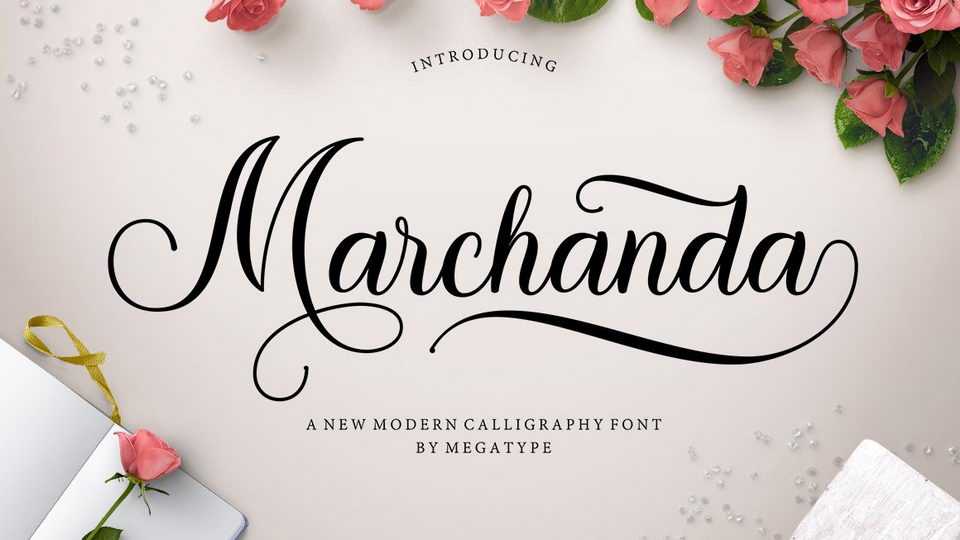
Download Marchanda font, a stunning modern calligraphy script with fancy swashes. Marchanda font can be used for various purposes, such as logo, wedding design, branding, headlines, signage, labels, quotes and more.
Designer: Mega Type